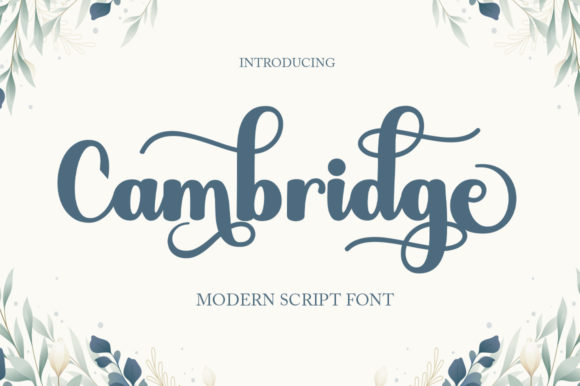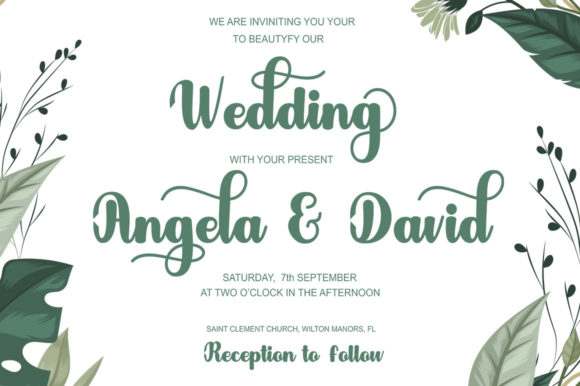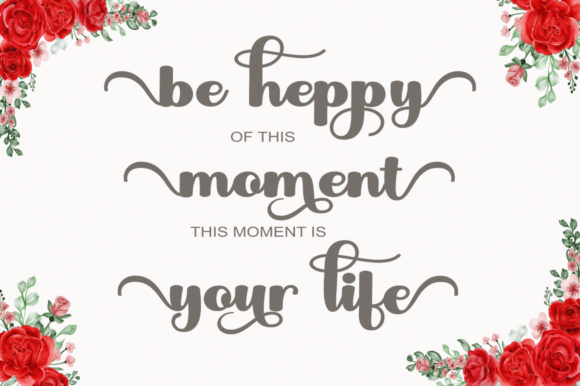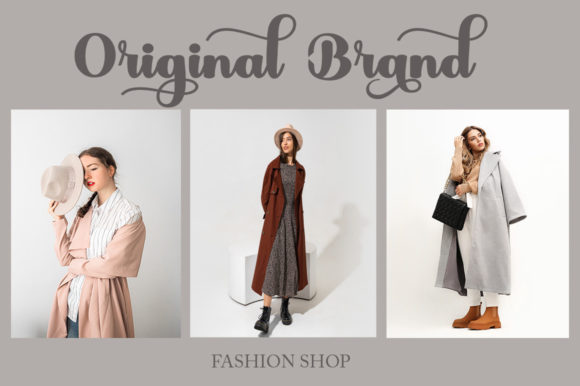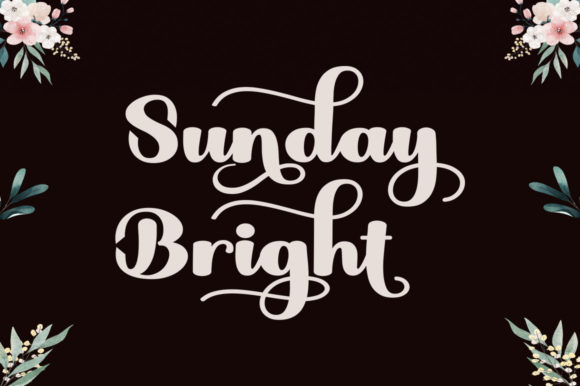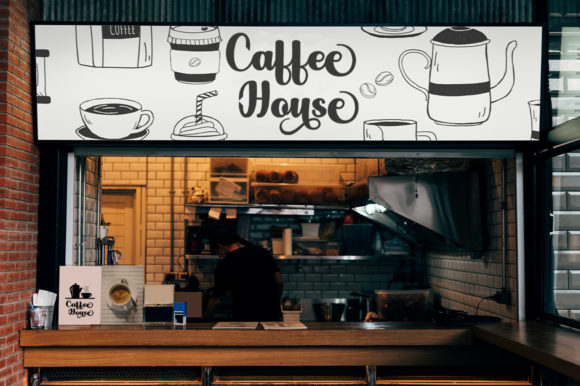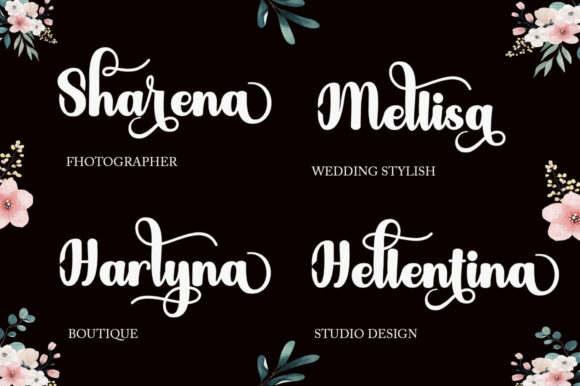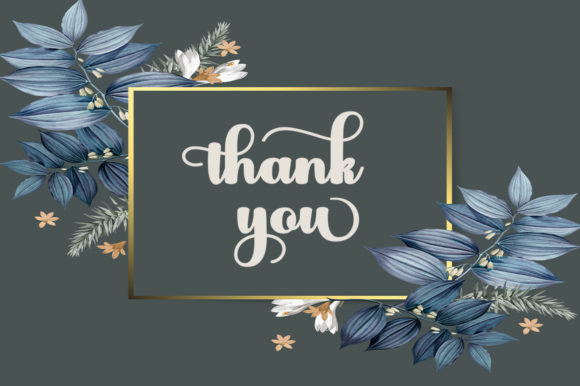
About Cambridge Font
Cambridge is a distinct, refined script font that emanates sophistication and elegance. Its stylish alternates and ligatures make this font the perfect match for any project.